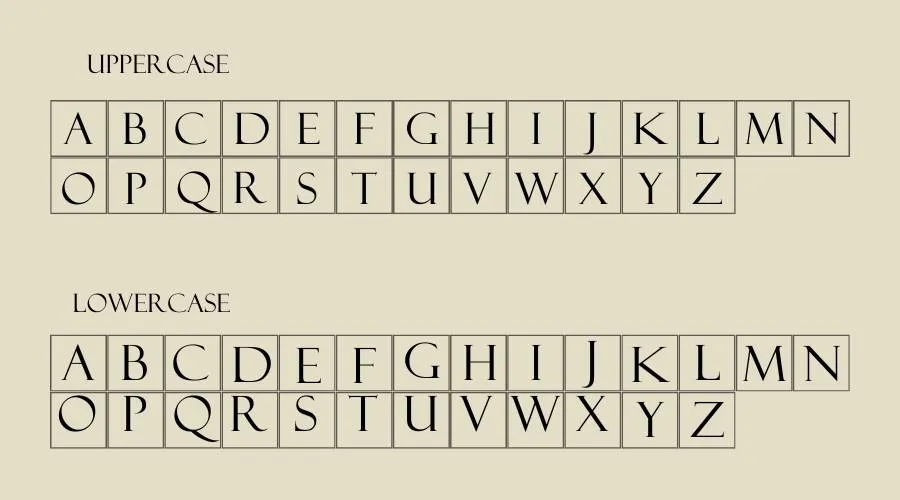
About Felix Titling Font
Felix Titling Font is designed by Monotype foundry its elegant appearance is ideal for use in exhibition design. There are more than 50 characters in total, including uppercase letters, lowercase letters, digits, and standard punctuation.
The free sample version of this font family includes a variety of distinctive features. Because of its attractive appearance's clarity, it is appropriate for use in fashionable heading designs. This contemporary, trendy font has a lovely feel that works well for professional graphic design projects.
This contemporary typeface pairs incredibly well with the kabel font, which is included in the sans serif category. It works best when used for titling and luxurious design purposes.